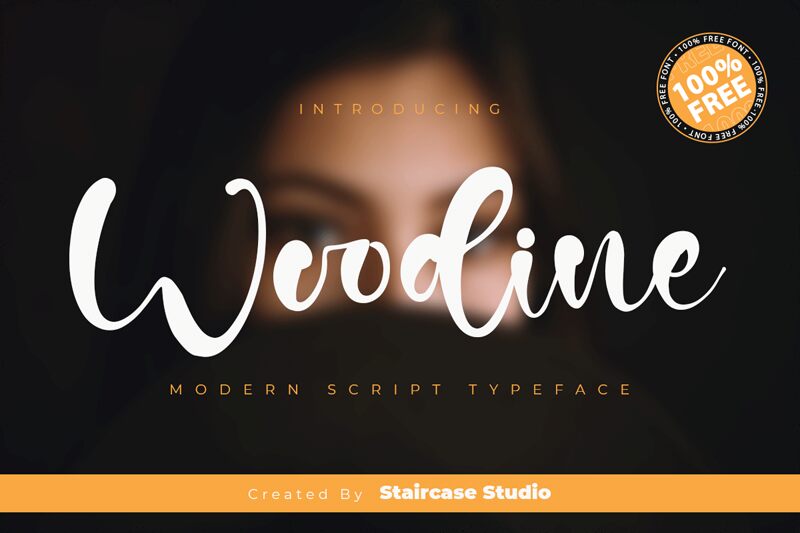
Woodine
Woodine by Staircase Studio is a modern script font with a bold presence. It's perfect for projects that require an eye-catching and unique design. From logos and headings to product packaging, Woodine can help you craft a distinctive look. Its soft yet striking curves make it suitable for invitations and greeting cards, while its boldness makes it perfect for posters and large displays. Woodine will bring a touch of class to any project!